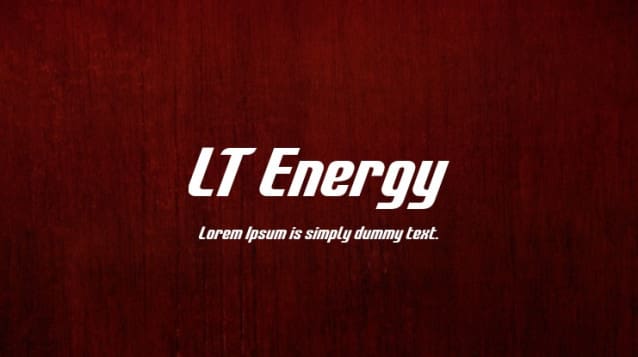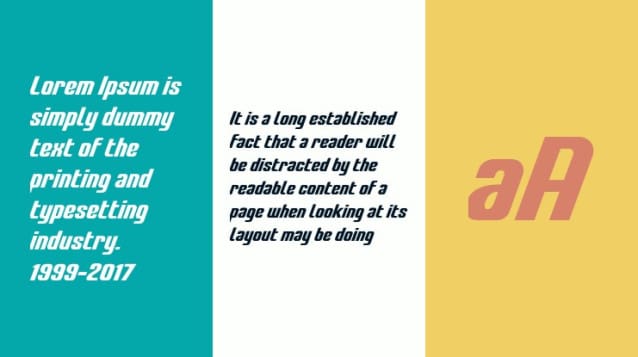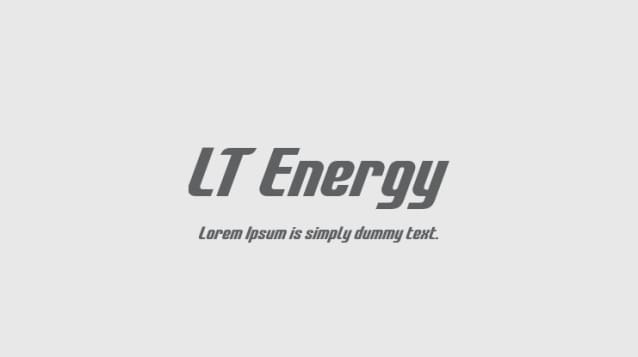
LT Energy Font
LT Energy Font, this bundle features strong, confident and powerful typefaces designed to work great with sports logos, club branding, apparel applications, labels and more.